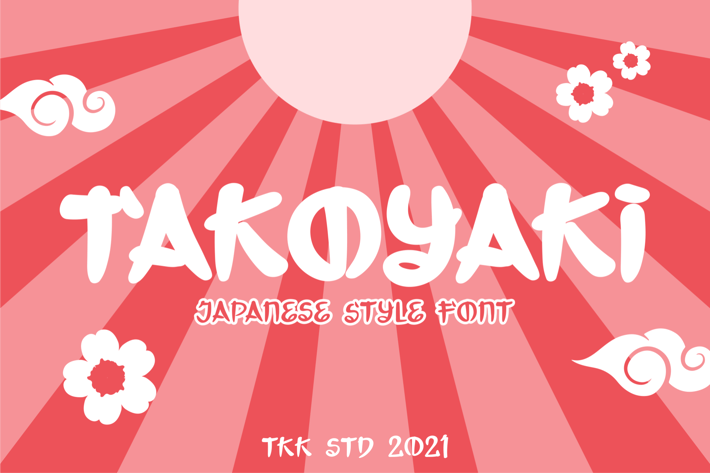
Japanese Font - Takoyaki
TAKOYAKI - japanese looking font
Takoyaki is a playful Japanese-style display font inspired by the vibrant food culture and joyful visual storytelling of Japan. It features soft, rounded shapes, chubby proportions, and whimsical terminals that evoke both manga titles and ramen bar signage. The font blends cultural familiarity with commercial charm, making it ideal for culinary branding, anime visuals, and kids' packaging. With a bold yet friendly vibe, Takoyaki is great for social media, product labels, and event posters—anywhere you want a taste of kawaii character with clear visual identity.
✦ Key Features
Cute with Character
- Kawaii Appeal: Rounded letterforms and friendly curves make it perfect for family-friendly designs
- Japanese Visual Identity: Inspired by food packaging, manga covers, and Tokyo street visuals
- Display Versatility: Great for headers, posters, food menus, stickers, and comics
- Stylish Simplicity: Eye-catching without overwhelming your layout—ideal for quick brand recall